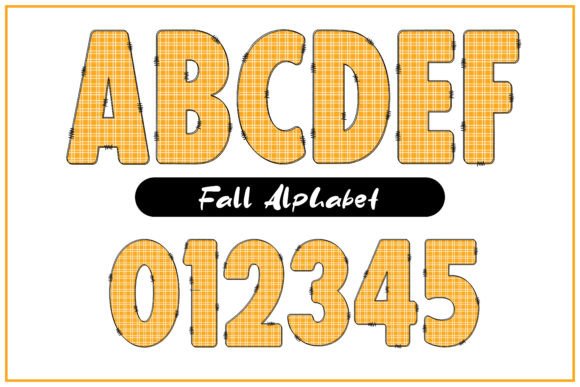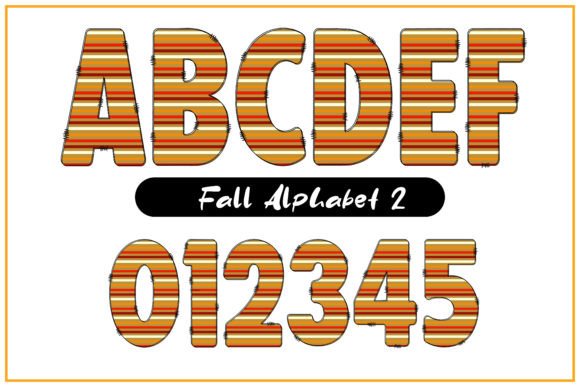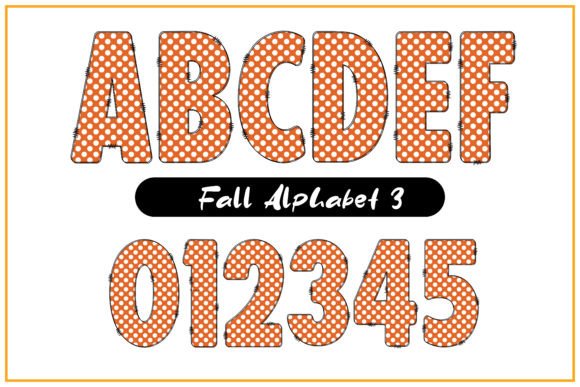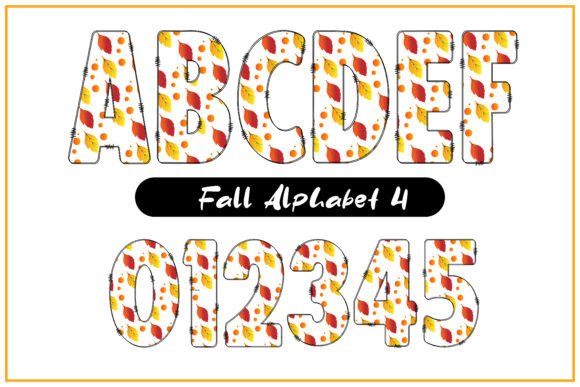
Fall in Love with Fall Alphabet Font
It’s that time of the year again – the leaves are changing colors, the air is crisp, and we’re all scrambling to get our Autumn projects underway. I still remember the year I spent hours searching for the perfect font for a client’s fall-themed party invitation. I tried countless fonts, but none seemed to capture the cozy, festive feel I was looking for. That was until I stumbled upon the Fall Alphabet Font. It was love at first sight! ✨
So, what makes Fall Alphabet Font so special? Let’s dive into the good stuff and a few quirks I’ve discovered.
• 🎉 Festive and Playful: This font is perfect for creating Autumn-themed projects that scream cozy and inviting.
• 💻 High-Quality Design: The font is beautifully designed with intricate details that make it perfect for both digital and print projects.
While Fall Alphabet Font is an amazing addition to any designer’s toolkit, there are a few things to keep in mind:
• 🤔 Learning Curve: If you’re new to using OpenType fonts or glyphs, there might be a slight learning curve. But trust me, it’s worth it!
The Story Behind Fall Alphabet Font
Fall Alphabet Font was designed by a team of creatives who wanted to capture the essence of Autumn in a font. Inspired by the changing leaves, cozy sweaters, and warm cups of apple cider, they created a font that’s perfect for the season.